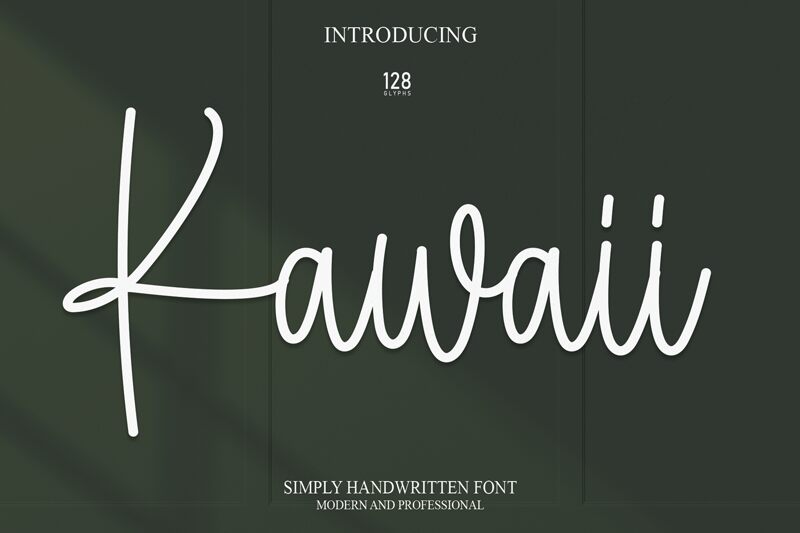
Kawaii
Kawaii, a stunningly beautiful handwritten font by Scratchones, brings an air of elegance and whimsy to any project. With its light weight and condensed width, this font is perfect for creating visually striking designs that demand attention.
Whether you're working on a charming wedding invitation, a playful children's book cover, or a delightful product packaging, Kawaii will infuse your project with the perfect touch of artistic flair.
Let your imagination run wild as you explore the endless possibilities that this enchanting font has to offer.